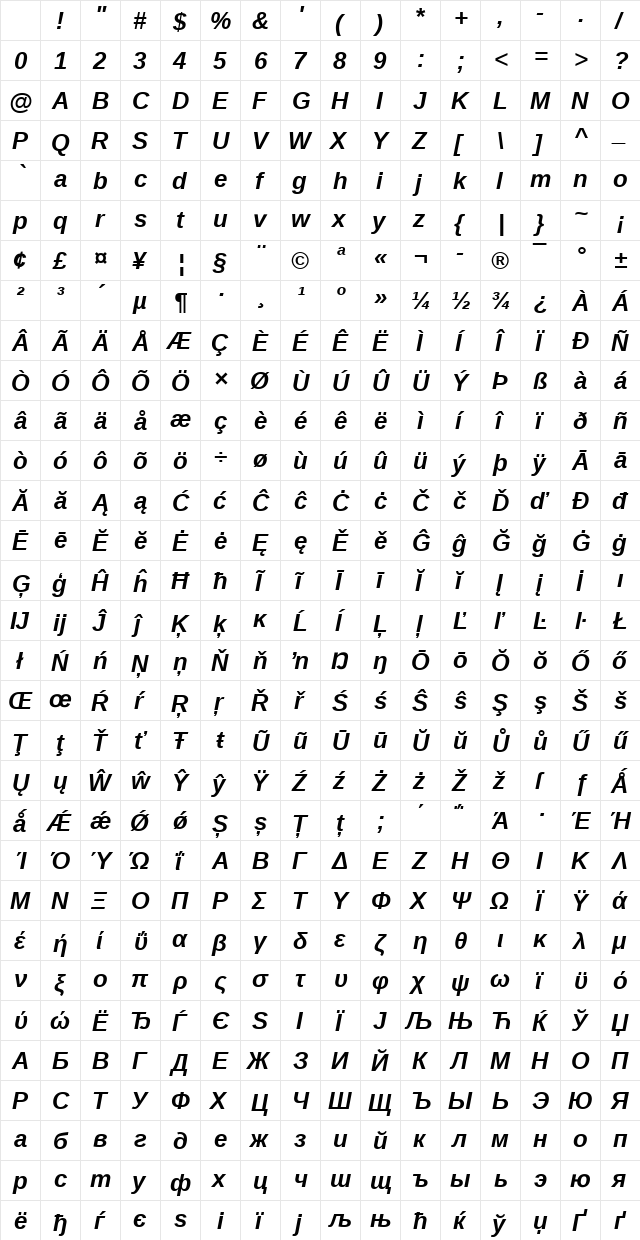
Liberation Sans Bold Italic
Foundry: Ascender Corporation
Designer: Steve Matteson
Liberation Sans Family
Complete Liberation Sans Bold Italic glyph index. Displaying only characters natively supported by Liberation Sans Bold Italic font.
Design Context for Liberation Sans
Liberation Sans is a composed and adaptable typeface that performs quietly and consistently across a wide range of design contexts. The slanted form adds forward momentum and visual energy. Its bold stroke weight gives it real presence on the page.